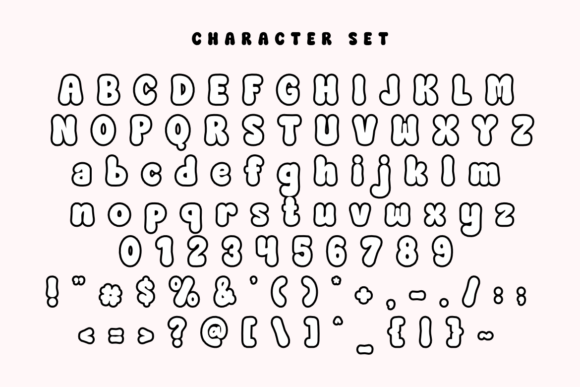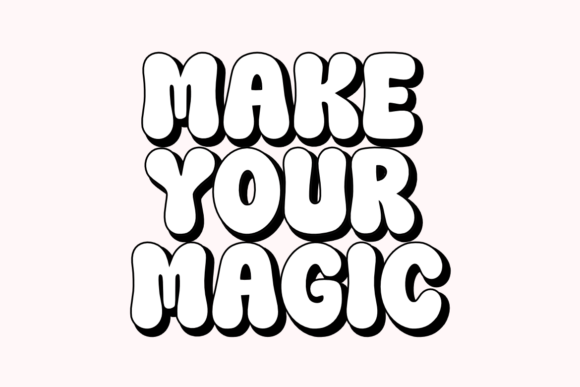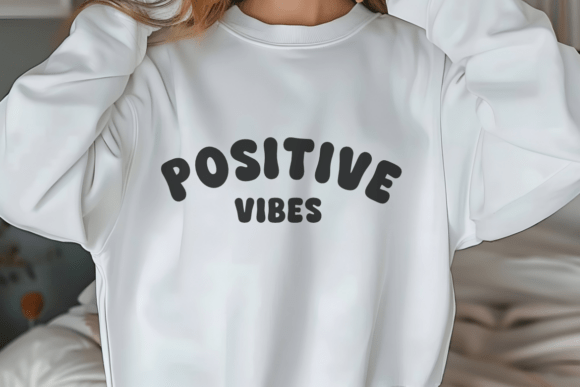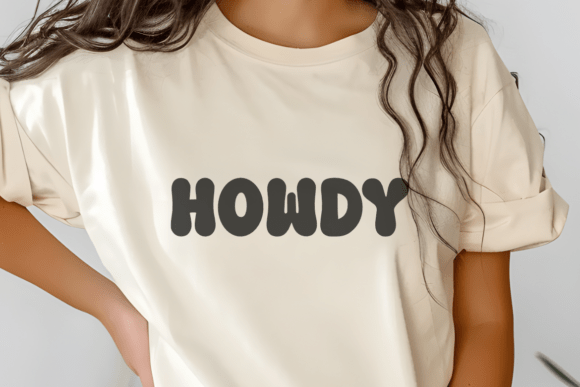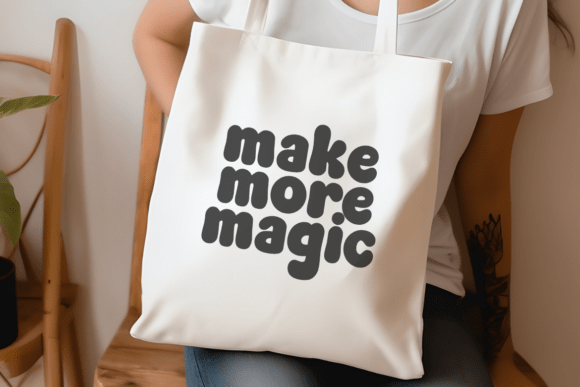
Introduction to Golden Charm Font
Do you remember the feeling of digging through your grandparents’ attic and stumbling upon old vinyl records, vintage posters, and worn-out magazines? The nostalgia that comes with it is a treasure trove of inspiration for any creative project. If you’re looking to infuse that same retro charm into your designs, you’re in luck. The Golden Charm Font is here to transport you back in time with its thick strokes and playful curves, making it a perfect addition to any design resource.
As a designer, you know how valuable a high-quality font can be in elevating your work. The Golden Charm Font is a game-changer, offering a unique and eye-catching style that’s perfect for crafting, sublimation, print on demand, and more. With its transparent background and PUA encoding, you’ll have easy access to all the characters you need to create stunning designs.
Key Features of Golden Charm Font
- High-quality design resource with a unique, elegant charm
- Features a transparent background, ideal for creative projects
- Perfect for designs that require a touch of sophistication and whimsy
- Includes a range of glyphs and characters for versatility in design
Honest Review: Golden Charm Font
I recently came across the Golden Charm Font, and I must say, it’s a lovely addition to any creative project. The high-quality design is perfect for those looking for a touch of elegance.
Here are some things that work well about the Golden Charm Font: ✨
- High-quality design that exudes elegance and sophistication
- Transparent background makes it easy to overlay on any image
While the Golden Charm Font is a great resource, there are a few limitations to consider: ⚠️
- Only one style is available, which may limit its versatility
- May not be suitable for bold or dramatic designs
Overall, I’m impressed with the Golden Charm Font. Its high-quality design and transparent background make it a valuable resource for designers working on a variety of creative projects. While it may have some limitations, it’s a great addition to any design library.
Tips for Getting the Most Out of Golden Charm Font
Use Golden Charm Font to add a touch of elegance to your designs. Pair it with a transparent background to create a high-quality design resource. This font is perfect for creative projects, such as invitations, flyers, and business cards.
Golden Charm Font is ideal for use in wedding invitations, baby shower invitations, and other special occasion invitations. It’s also great for use in branding and marketing materials, such as business cards and brochures.